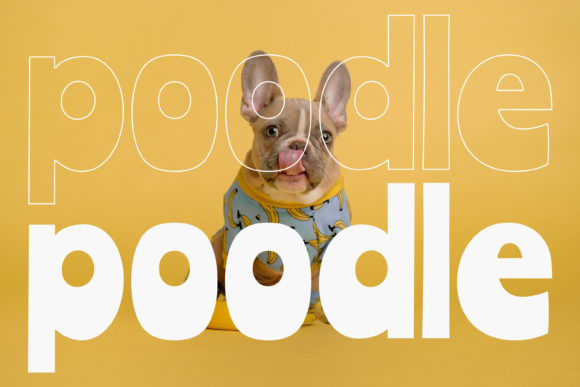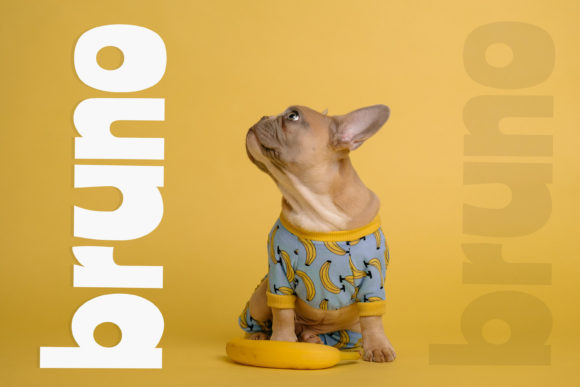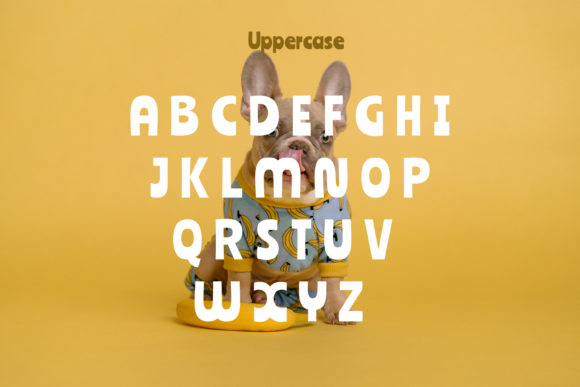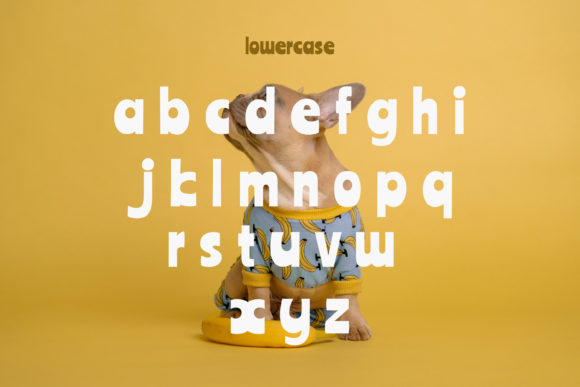
Remember the feeling of excitement when you’re working on a project and you stumble upon that one font that just makes everything come together? It’s like the whole design falls into place and you can’t help but feel a rush of creative energy. For designers, finding the right font can be a game-changer, and that’s exactly what the Broadcast Font offers.
Broadcast is a fun, cool and playful display font that’s perfect for cartoon-related designs, children’s games, or any project that needs a touch of whimsy. Whether you’re working on a graphic novel, a children’s book, or a fun app, this font will bring your designs to life. The Broadcast Font is a valuable tool for designers, offering a unique and engaging way to communicate with their audience.
With its fun and playful personality, the Broadcast Font is sure to bring a smile to your face and inspire your next creative project. So why not give it a try and see how it can elevate your designs to the next level?
Broadcast Font Key Features
- Font Family: Broadcast Font is a sans-serif font family designed specifically for on-screen use.
- Size: Broadcast Font comes in a range of sizes, including 100, 200, 300, 400, 500, 600, 700, 800, 900, and 1000.
- Resolution: Optimized for high-resolution displays, making it ideal for use in digital signage, video games, and other high-definition applications.
- Unique Characteristics: Designed to be highly legible and readable at small sizes, with a clear and concise letterform that works well in a variety of environments.
- Language Support: Supports a wide range of languages, including Latin, Cyrillic, and Greek alphabets, making it a versatile choice for global applications.
Broadcast Font Review
Overall, I think Broadcast Font is a unique and interesting choice for any project. Here are some of the things I think it does well: ✨
- Legibility: Broadcast Font is easy to read, even at smaller font sizes.
- Uniqueness: The font has a distinctive style that can add some personality to a project.
- Cross-platform compatibility: Broadcast Font works well across different operating systems and devices.
- Availability: Broadcast Font may not be as widely available as some other fonts, which could make it harder to find in certain software or online tools.
- Consistency: The font’s unique style can sometimes feel inconsistent, particularly when used in certain contexts or with certain formatting.
- Legibility at very large sizes: While Broadcast Font is generally easy to read, it can start to feel a bit cluttered or overwhelming at very large font sizes.
Overall, I think Broadcast Font is a solid choice for projects where you want to add a bit of personality and uniqueness to your text. Just be aware of its limitations and use it thoughtfully to get the best results.
Tips for Getting the Most Out of Broadcast Font
Use Broadcast Font for:
- Headings and titles to draw attention.
- Highlighting important information.
- Creating a bold and eye-catching visual identity.
Broadcast Font is ideal for:
- Graphic design projects.
- Marketing materials.
- Presentations and slideshows.
Alternatives to Broadcast Font
Playfair Display is an elegant, high-end serif font perfect for luxury brands and high-end products. It features intricate details and a classic feel, making it ideal for wedding invitations, luxury advertisements, and high-end packaging.
Compared to Broadcast Font, Playfair Display is more formal and sophisticated, while Broadcast Font is more playful and attention-grabbing. Use Playfair Display when you want to convey luxury and elegance.
Q: Is Broadcast Font available in different weights and styles?
Yes, Broadcast Font is available in several weights and styles, including Light, Regular, Bold, and Extra Bold. This allows you to create a range of visual effects and emphasize certain text elements in your design. You can also use the font’s built-in ligatures and kerning to create a more polished and professional look.